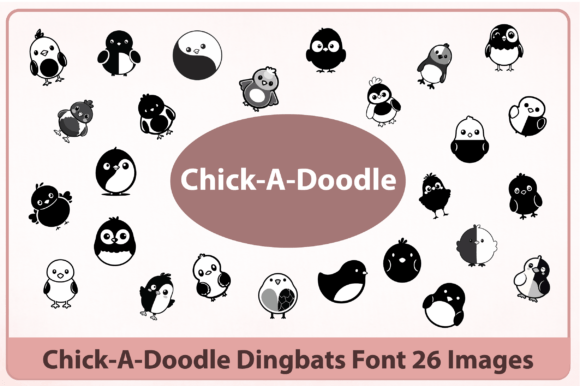
Chick-A-Doodle: The Quirkiest Coop on the Font Farm!
Are you tired of using the same old fonts in your designs? Do you want to add a dash of whimsy and fun to your projects? Look no further than Chick-A-Doodle, the quirkiest coop on the font farm! This set of 26 cluck-tastic dingbats is sure to have you pecking out designs faster than a hen chasing a rogue kernel of corn.
What is Chick-A-Doodle?
Chick-A-Doodle is a unique and playful font that features 26 dingbats, each one inspired by the wonderful world of chickens. From eggs to feathers, and from beaks to wings, this font has everything you need to add a touch of poultry-powered pizzazz to your designs.
Why Choose Chick-A-Doodle?
So why settle for boring when you can wing it with Chick-A-Doodle? This font is perfect for designers and crafters who want to add a dash of fun and personality to their projects. Whether you’re creating invitations, greeting cards, or social media graphics, Chick-A-Doodle is sure to make your designs stand out from the crowd.
Features of Chick-A-Doodle
Here are just a few of the features that make Chick-A-Doodle the quirkiest coop on the font farm:
- 26 cluck-tastic dingbats: Each one inspired by the wonderful world of chickens.
- Perfect for crafters and designers: Add a dash of fun and personality to your projects.
- Scalable: Use Chick-A-Doodle for projects of all sizes, from business cards to billboards.
Uses for Chick-A-Doodle
So what can you use Chick-A-Doodle for? The possibilities are endless! Here are a few ideas to get you started:
- Invitations and greeting cards: Add a touch of whimsy and fun to your paper crafts.
- Social media graphics: Make your social media posts stand out from the crowd with Chick-A-Doodle.
- Signs and displays: Use Chick-A-Doodle to create eye-catching signs and displays for your business or event.
- Branding and marketing: Add a dash of personality to your brand with Chick-A-Doodle.
Tips and Tricks for Using Chick-A-Doodle
Here are a few tips and tricks for getting the most out of Chick-A-Doodle:
- Experiment with different colors and textures: Add depth and interest to your designs with different colors and textures.
- Mix and match dingbats: Create unique and interesting designs by combining different dingbats.
- Use Chick-A-Doodle with other fonts: Pair Chick-A-Doodle with other fonts for a unique and eye-catching look.
In conclusion, Chick-A-Doodle is the quirkiest coop on the font farm, and it’s sure to bring a dash of fun and personality to your designs. With its 26 cluck-tastic dingbats, ease of use, and scalability, Chick-A-Doodle is perfect for designers and crafters of all levels. So why settle for boring when you can wing it with Chick-A-Doodle?